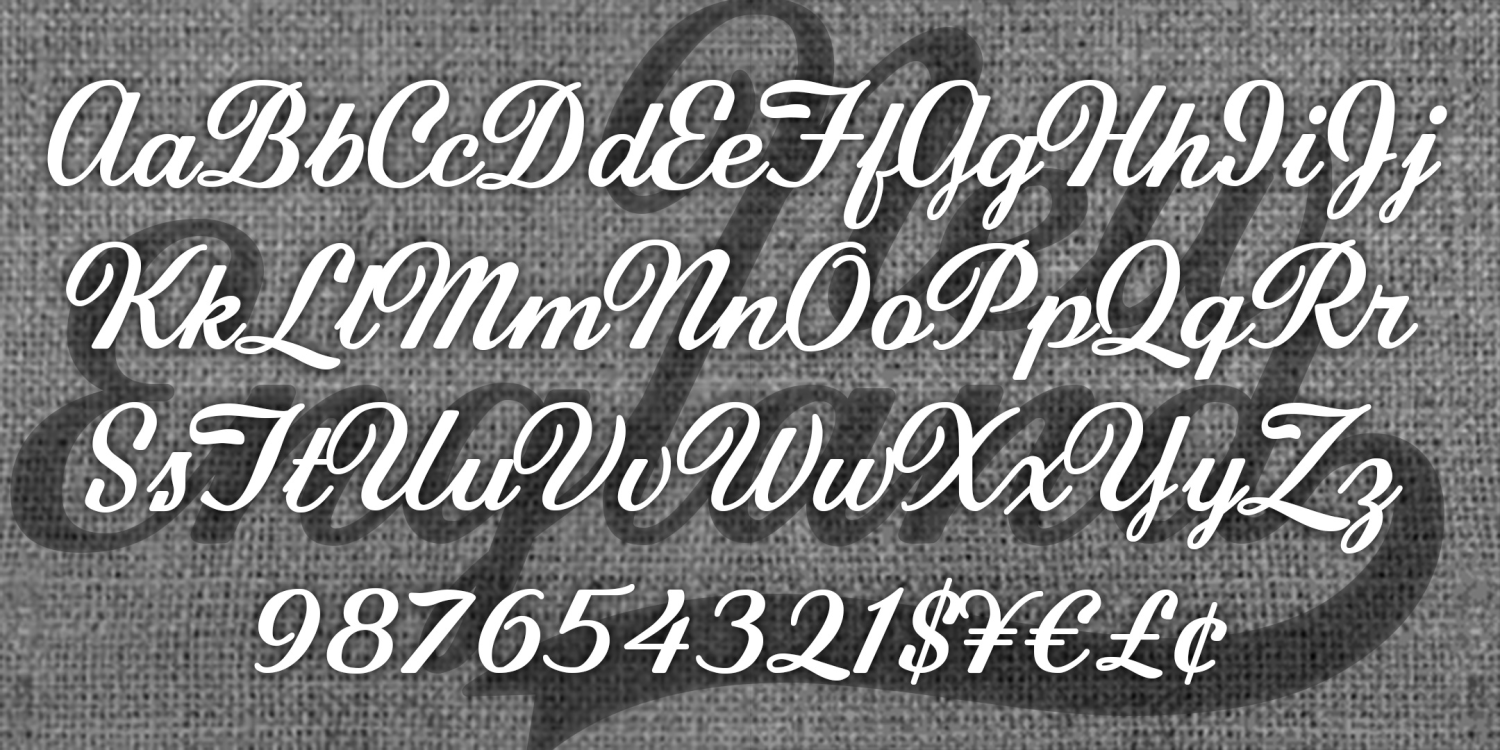
New England
About New England
NEW ENGLAND is a handsome script; it's not too fancy, too stylized, or too contrasty, problems I find with too many script fonts. The film itself is excellent and the restored version is well worth watching if only for Bernard Herrmann's score.…